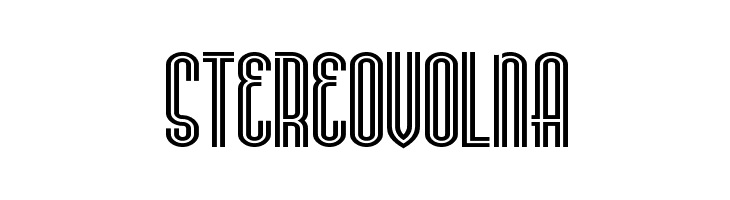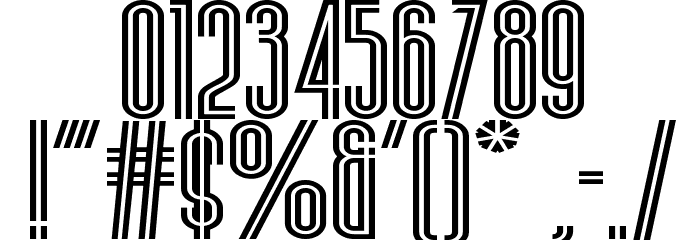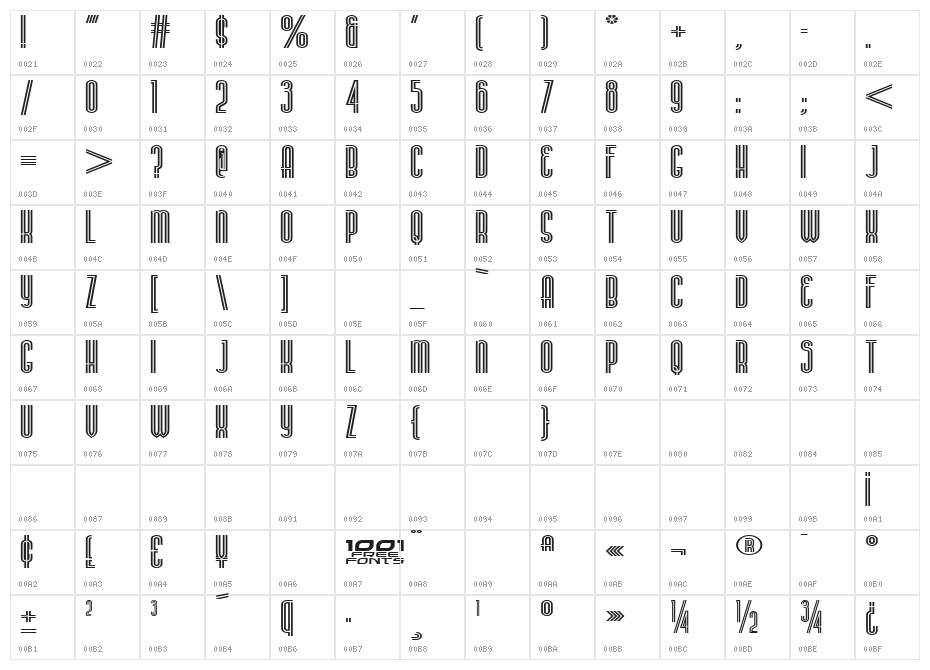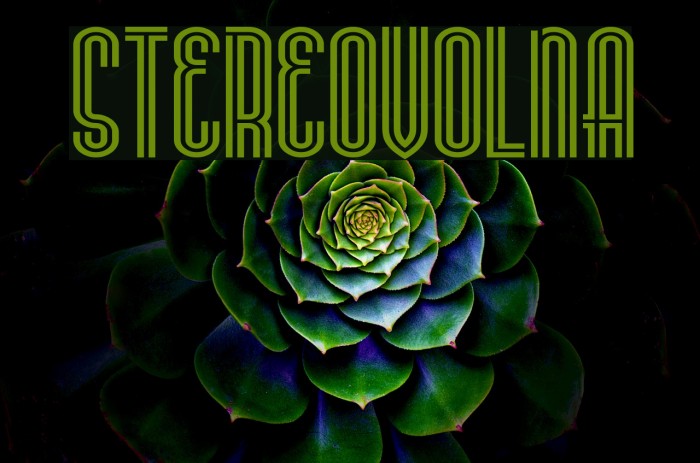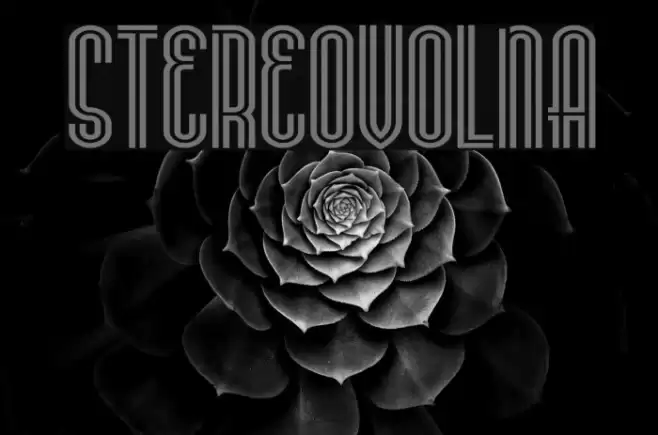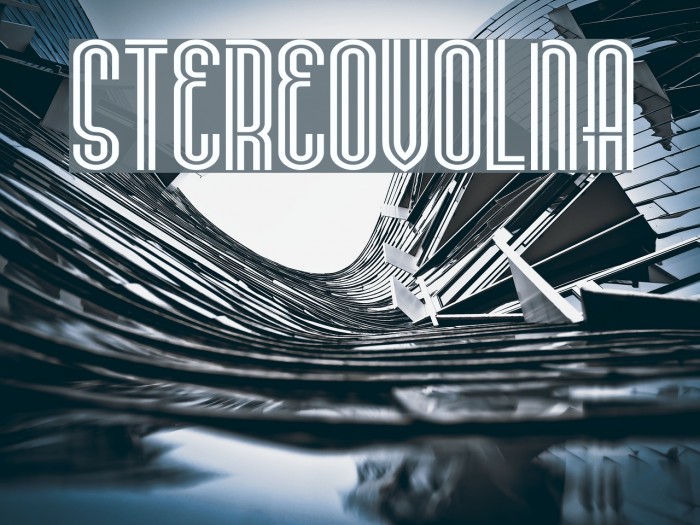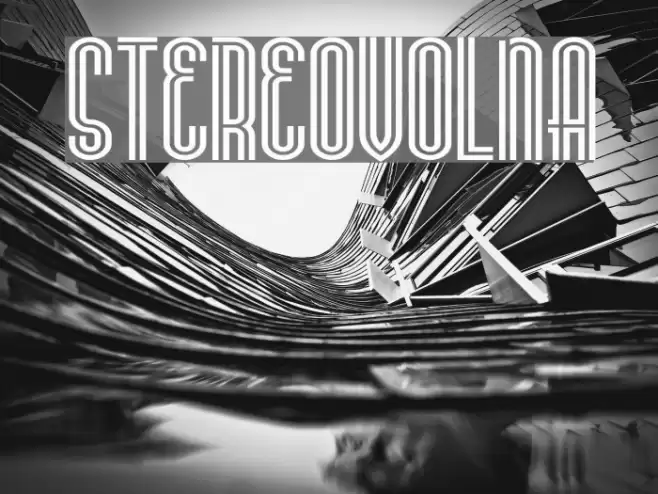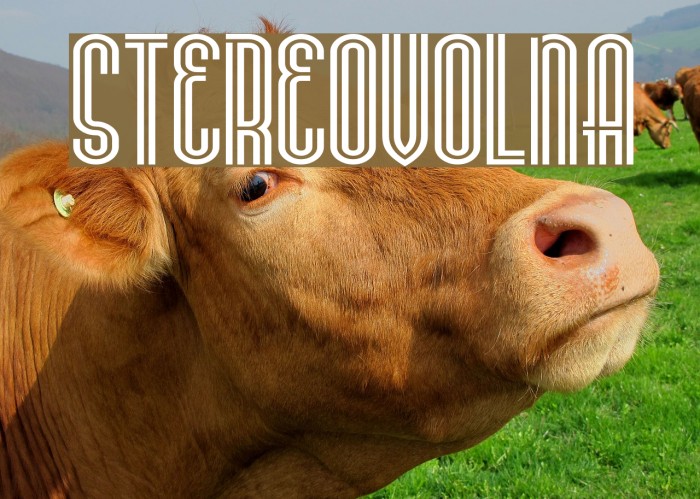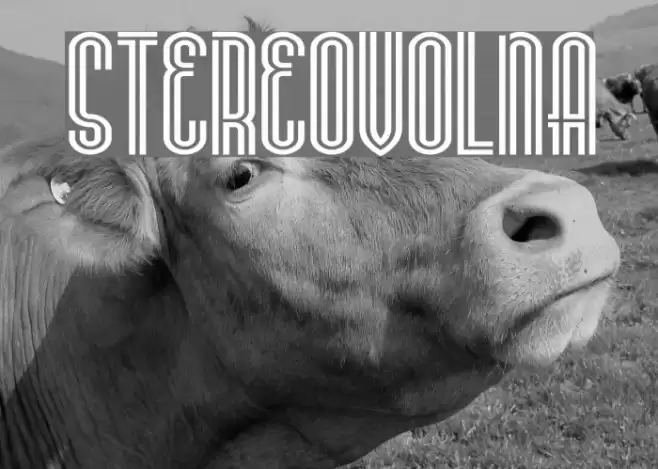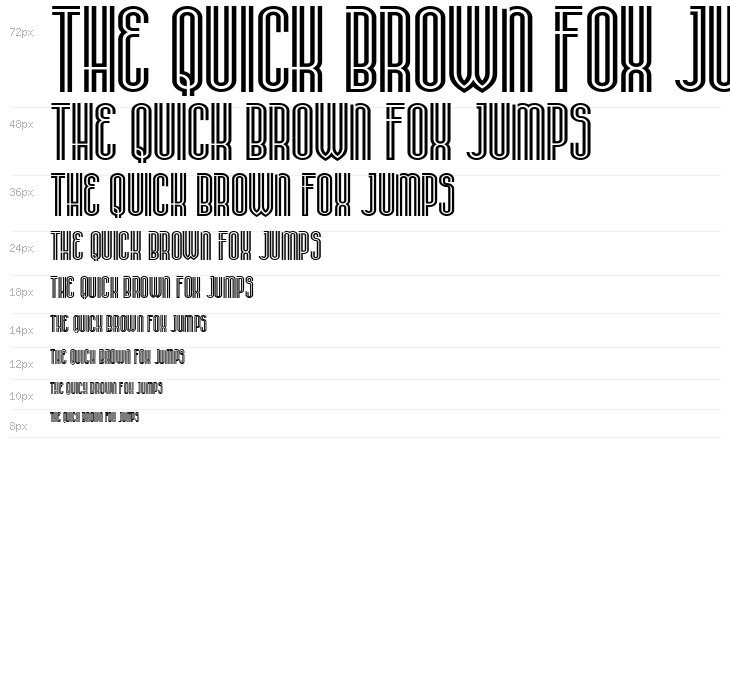
Stereovolna Font
Stereovolna Description
This font features a bold, geometric design with a distinctively modern and decorative style. The characters are constructed with multiple parallel lines, creating a layered effect that adds depth and visual interest. The uppercase and lowercase letters maintain a consistent height, contributing to a uniform appearance. The numerals and special characters follow the same design principles, ensuring cohesion across all elements. The font's unique structure makes it stand out, ideal for projects that require a strong visual impact.
| Proposed Projects | Ideal for branding, poster design, album covers, and any project needing a striking, modern aesthetic. |